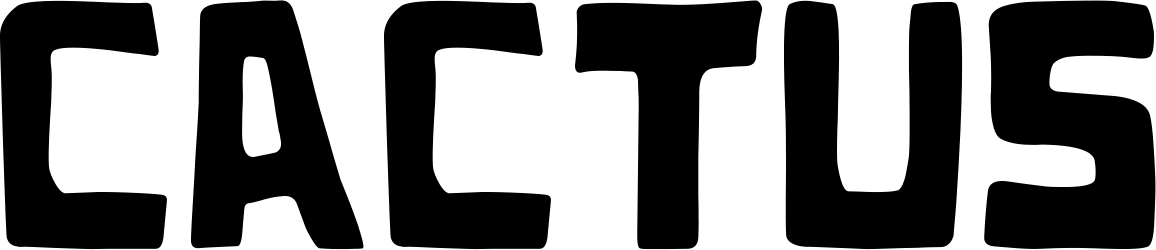
Cactus Font
Perfectly designed in order to create a cool look for your typography, Cactus supplies capital letterforms for uppercase editions and another set of capitals only in a smaller size for lowercase versions.
This cartoon font, due to its rounded and solid style, chimes in perfectly with gaming graphics, website or application interface, stationery, or any other modern design and easily adds a friendly touch to it.